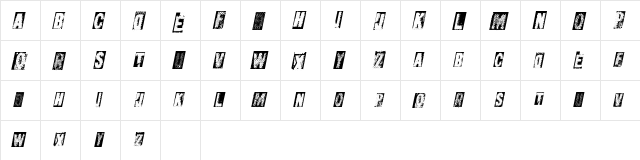
Complete MetalblockUltra Regular glyph index. Displaying only characters natively supported by MetalblockUltra Regular font.
MetalblockUltra is a composed and adaptable typeface that performs quietly and consistently across a wide range of design contexts.